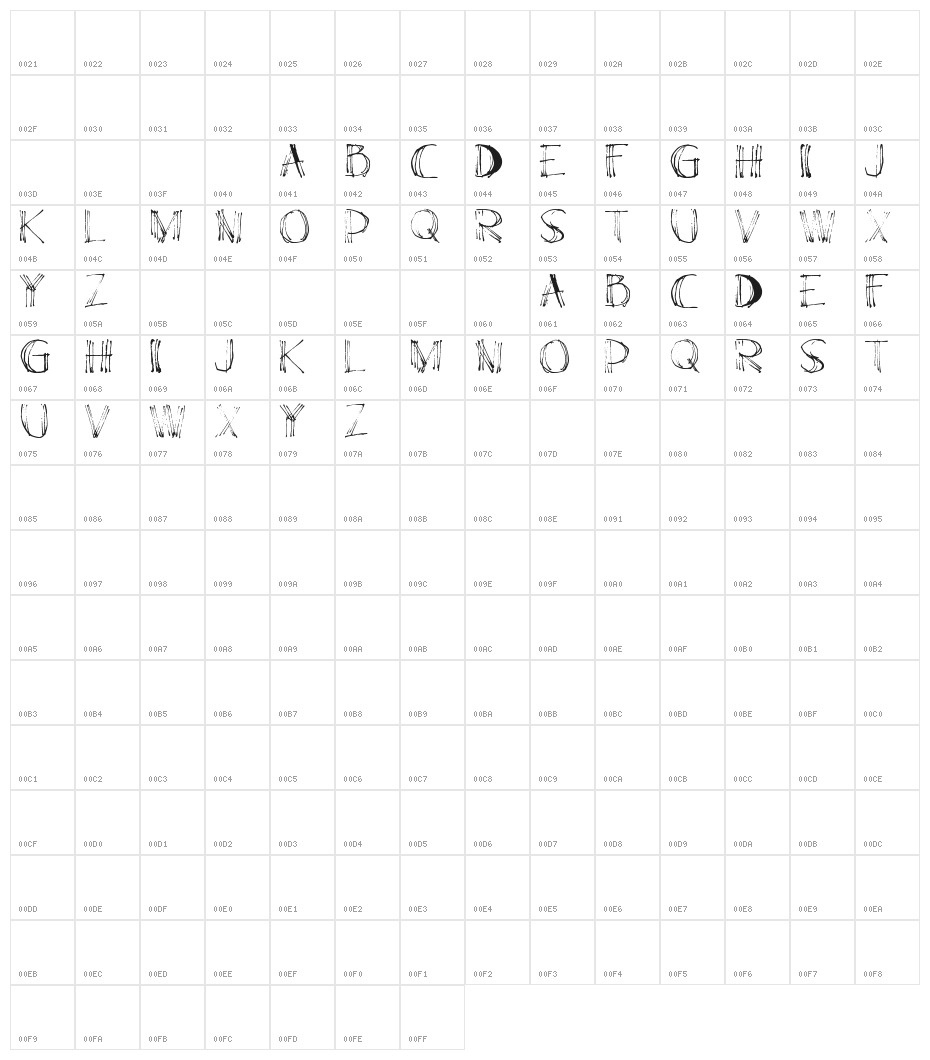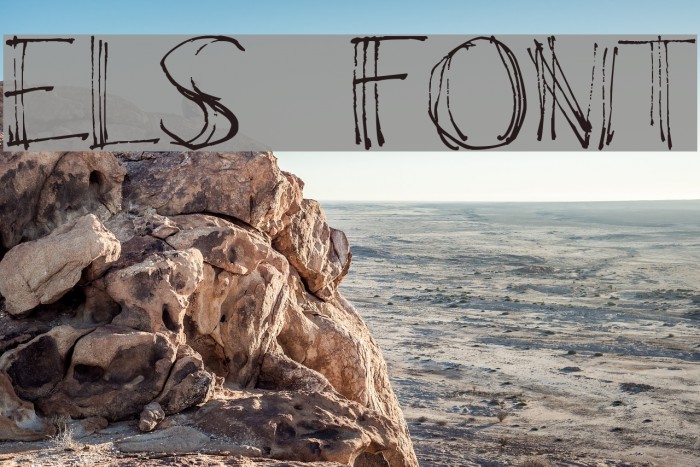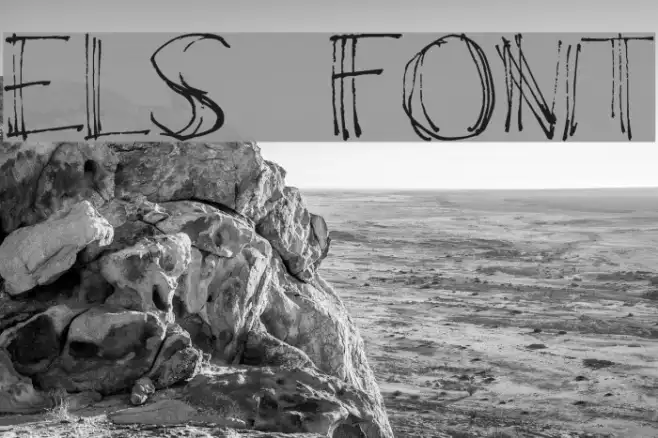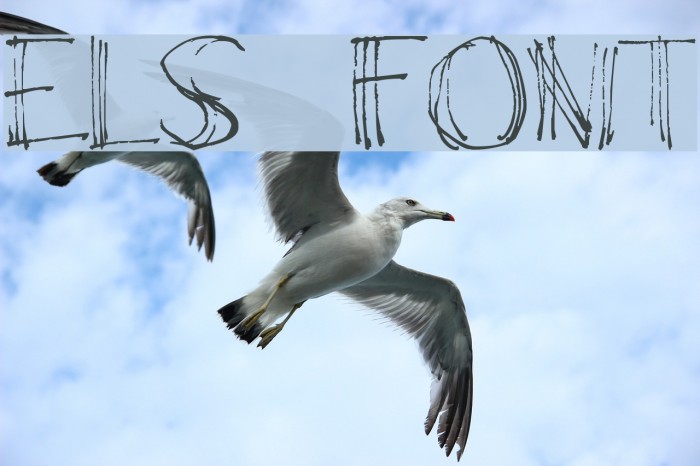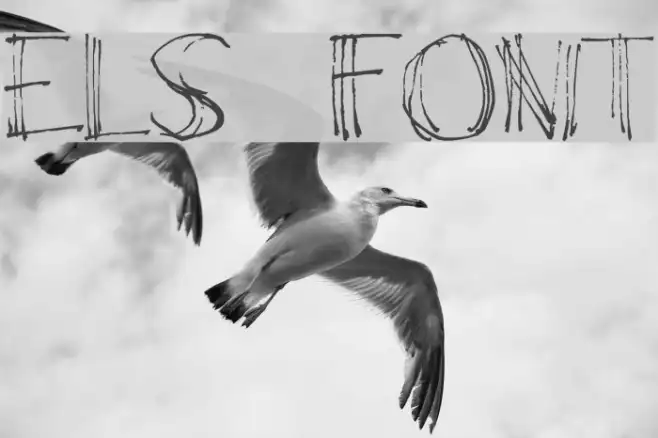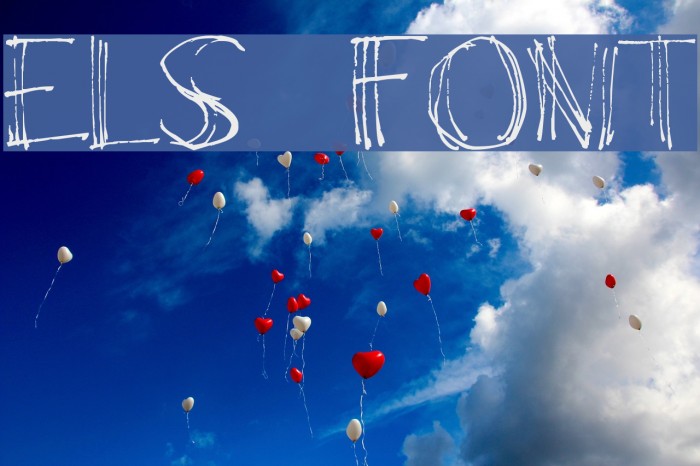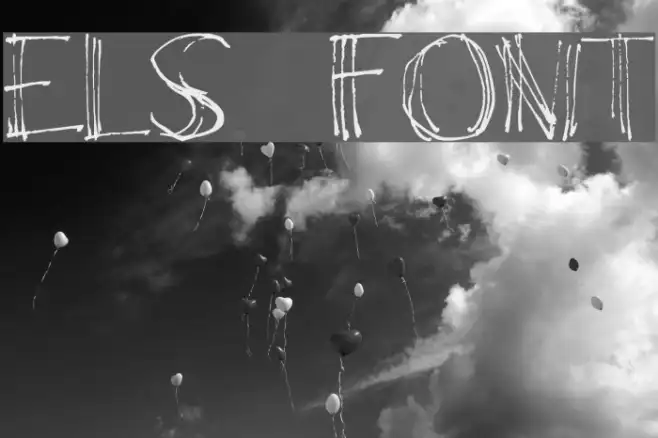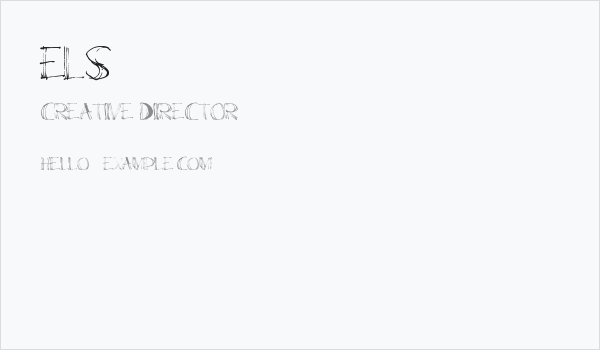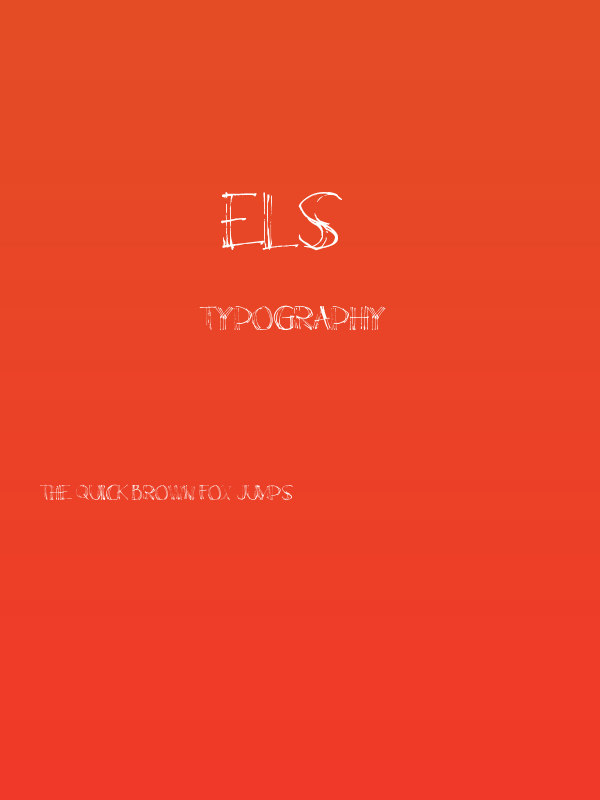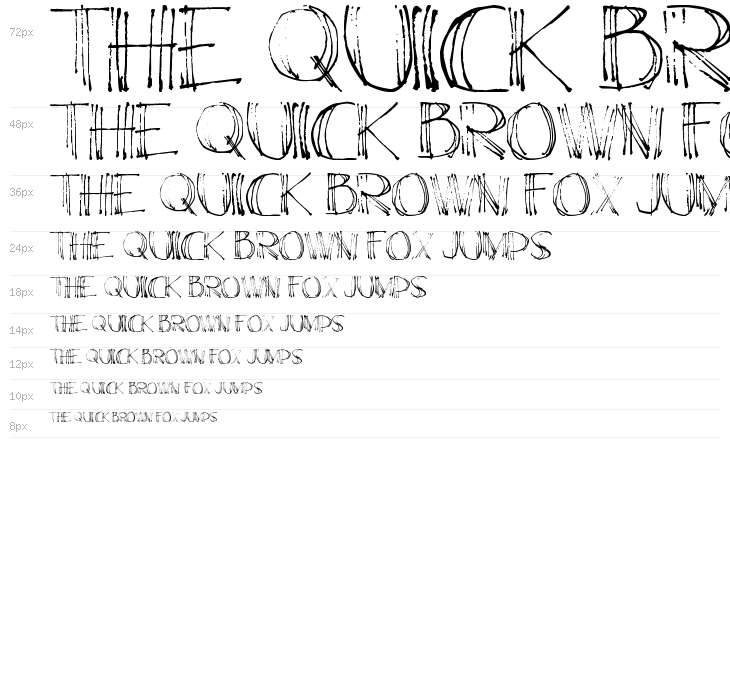
Elsö Font
Elsö Description
This font features a highly decorative and artistic style, characterized by its sketch-like, hand-drawn appearance. Each letter is composed of multiple thin, uneven strokes that create a sense of movement and texture. The irregularity in the lines gives it a raw, organic feel, reminiscent of a hand-sketched design. The uppercase letters are bold and prominent, while the lowercase letters maintain the same artistic flair. The numbers and special characters follow the same design principles, ensuring consistency across the font. This unique style is eye-catching and would stand out in any creative project.
| Proposed Projects | Ideal for artistic projects, posters, album covers, and any design requiring a bold, creative statement. |